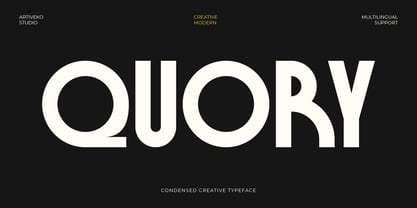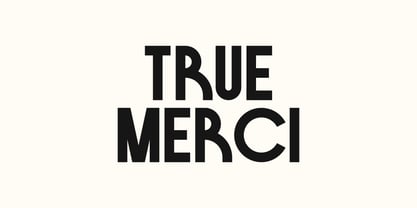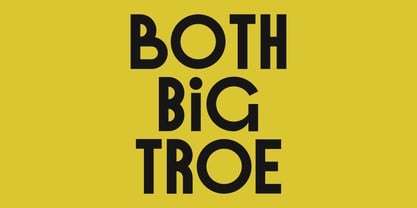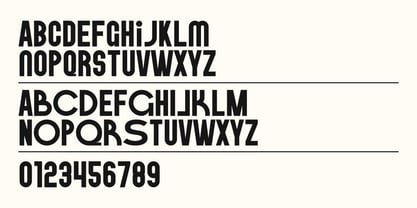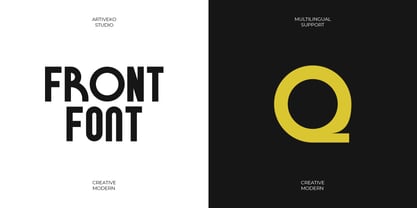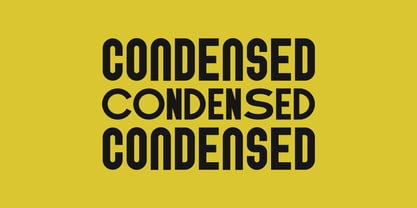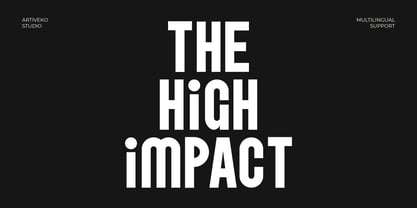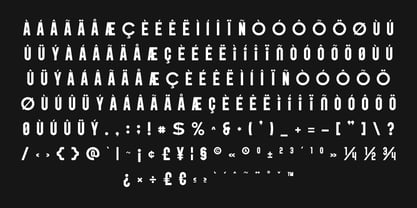
Quory
by Artiveko
The Quory Font Family was designed by Iwan Alwan and published by Artiveko. Quory contains 2 styles and family package options. More about this family
Quory is a retro-inspired condensed sans serif typeface that seamlessly blends vintage character with modern clarity. Featuring tall proportions and a narrow structure, Quory showcases distinctive retro styling that delivers a bold and nostalgic feel while ensuring high readability. This typeface is perfect for a variety of applications, including posters, branding, logos, packaging, editorial headlines, and vintage-style designs. Quory enables you to create eye-catching typography in limited spaces, making it ideal for strong headlines and impactful layouts without sacrificing balance or style. Whether you're crafting retro branding, classic posters, or modern nostalgic visuals, Quory adds a timeless yet fresh personality to your projects. Quory is not just a font — it’s a retro statement infused with modern precision.
Designers: Iwan Alwan
Current Foundry: Artiveko
Artiveko is a font design team based in Indonesia, comprised of several talented font designers who commenced their careers in the font design industry in 2020. With a dedicated focus on crafting fonts, the team members bring their collective expertise and passion to every project they undertake. Situated in Indonesia, Artiveko draws inspiration from the vibrant cultural landscape of the region, infusing their creations with unique flavors and aesthetics.The team's font collection encompasses a diverse range of styles, including serif, sans serif, handwritten, and script typefaces. Each typeface is meticulously crafted to meet the demands of modern design while offering versatility and functionality across various applications. Whether it's the classic elegance of serif fonts, the contemporary appeal of sans serif designs, the personal touch of handwritten scripts, or the expressive flourishes of script fonts, Artiveko ensures that every font reflects their dedication to quality and innovation.Artiveko's fonts have garnered recognition and acclaim, with their works being featured on prominent social media platforms like Creative Market. Through these platforms, the team has been able to connect with a global audience of designers and typographers, further amplifying their reach and influence in the industry. Their fonts are celebrated for their impeccable craftsmanship, attention to detail, and ability to elevate design projects with style and sophistication.As Artiveko continues to evolve and expand its font collection, the team remains committed to pushing the boundaries of typography and setting new standards of excellence. With a relentless focus on creativity, innovation, and collaboration, Artiveko strives to inspire and empower designers around the world with their distinctive and versatile font designs.